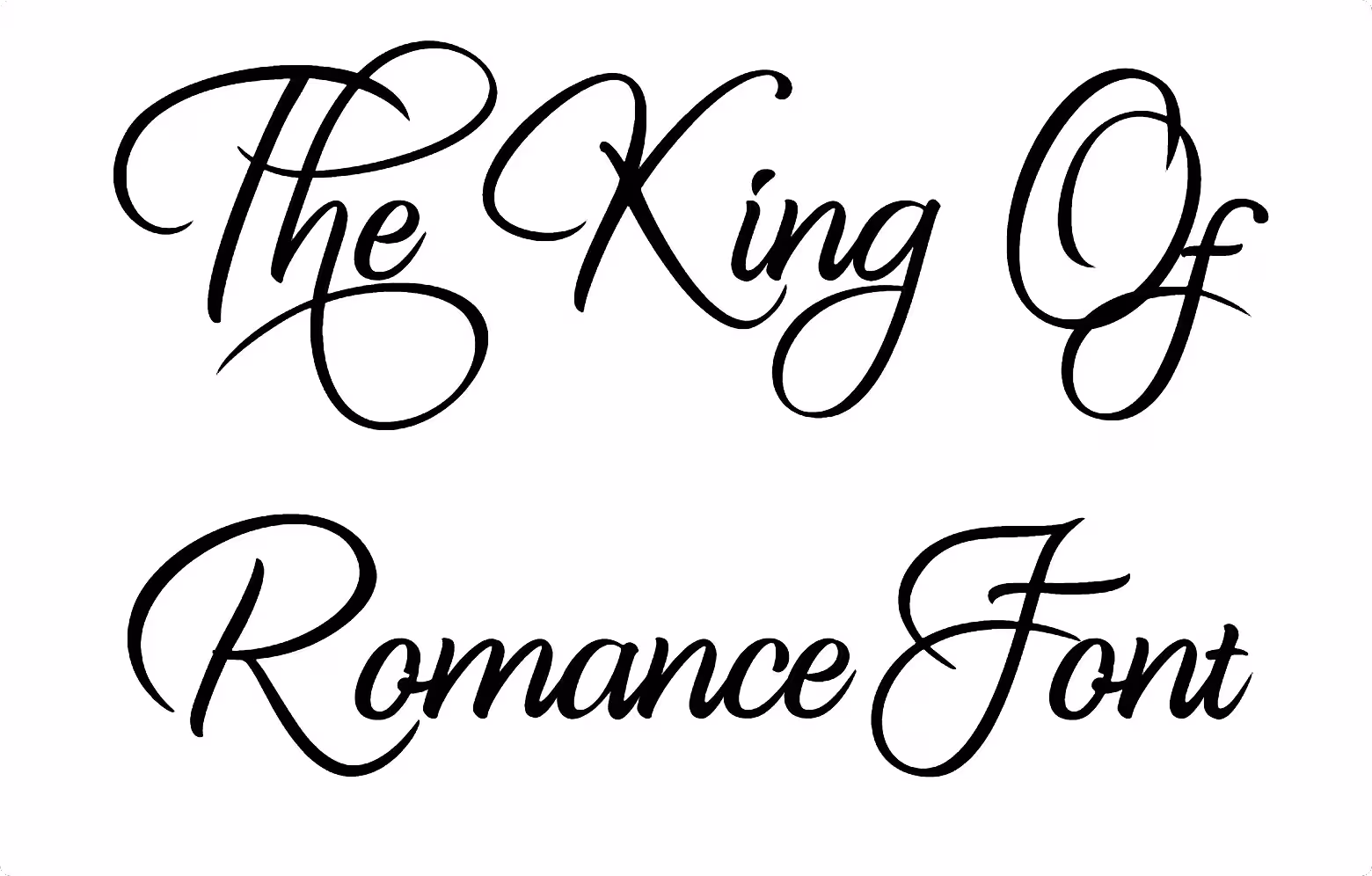
The King Of Romance
The King Of Romance is a calligraphy font designed by Daddi Daryawan and published by Creativework69 Studio – Daddi Daryawan (2020). Its flowing, pen-made letters give names and short phrases a personal, polished look. You can download it for free and test it with your own words in the preview above.
- Designer: Daddi Daryawan
- Publisher: Creativework69 Studio – Daddi Daryawan
- OpenType features: Ligatures, contextual alternates, stylistic alternates and one stylistic set
- Extra characters: 32 copy-and-paste alternates (Private Use Area)
You get every letter from A to Z in both cases and all the numbers from 0 to 9, which means The King Of Romance can handle full sentences, dates and prices. Everyday marks like &, !, ? and @ are there too. Thanks to its accented letters, it also works for Spanish, French, German, Portuguese and Italian, not just English.
Think of The King Of Romance for wedding invitations, certificates and elegant quotes. Script fonts read best in short bursts, so keep it to names, titles and one-line quotes. Skip all caps: script capitals are drawn to start a word, not to fill one.
Yes. The King Of Romance includes the accented letters needed for Spanish, French, German, Portuguese and Italian, so it works for more than just English.